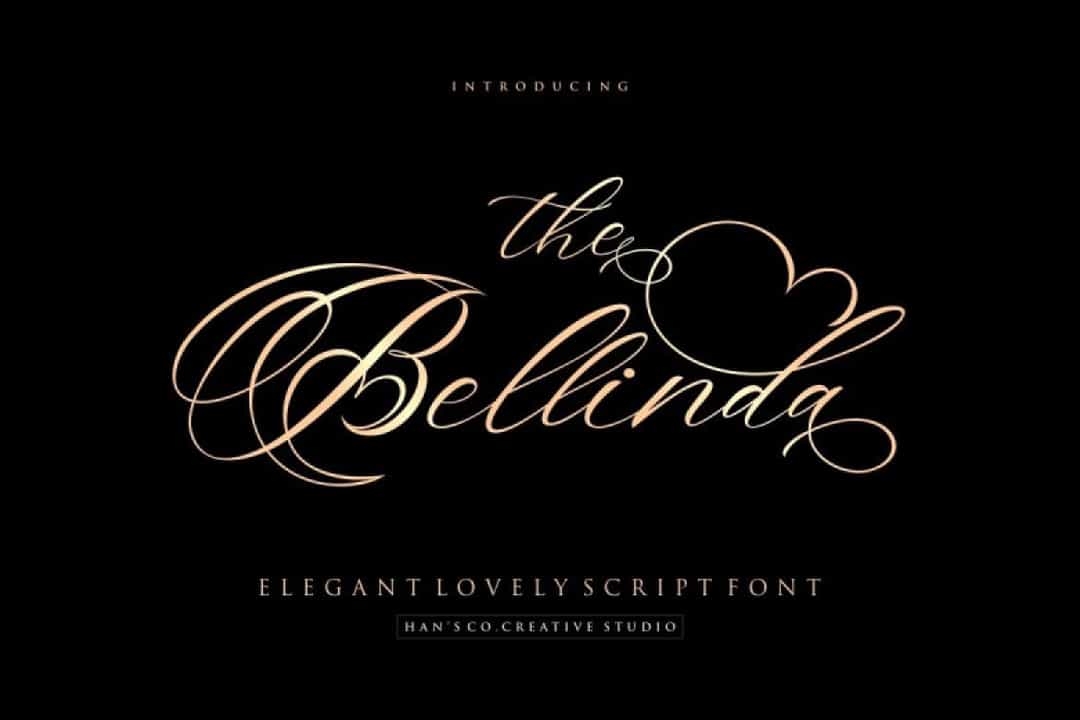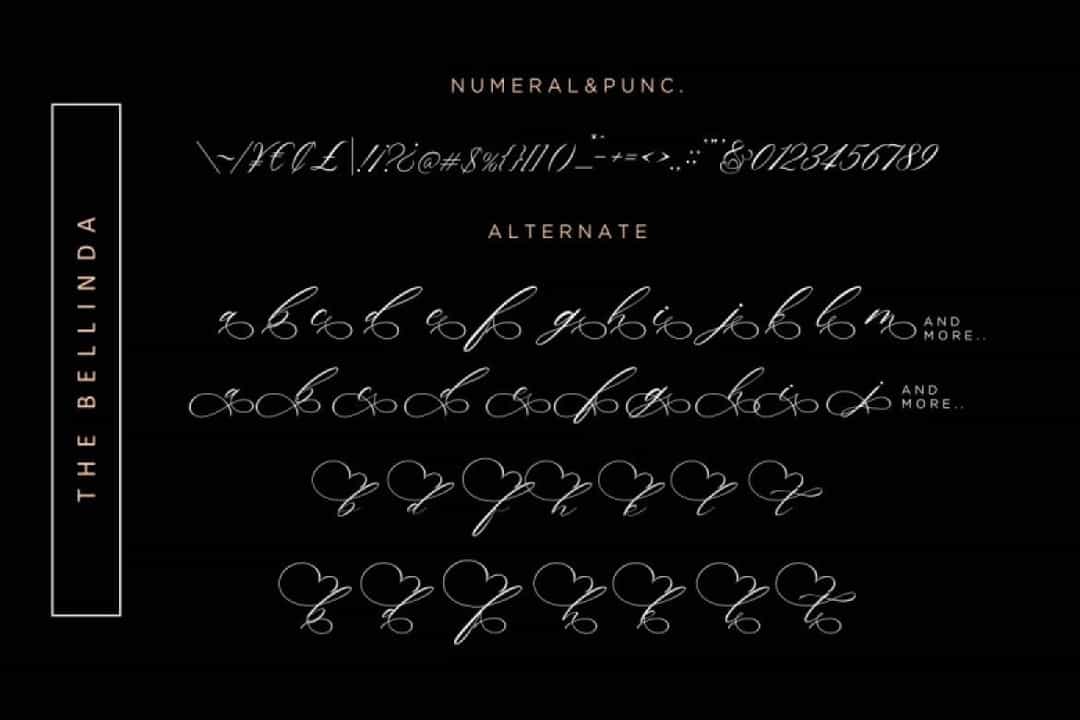
The Bellinda is a modern calligraphy script font that contains some beautiful alternate characters, a kind of traditional ornamental copperplate script with a contemporary twist, crafted with intricate design elements to add sophistication. It’s Interesting scripts as smooth, clean, feminine, sensual, glamorous, simple and very easy to read because there are many fancy and simple letter connections.